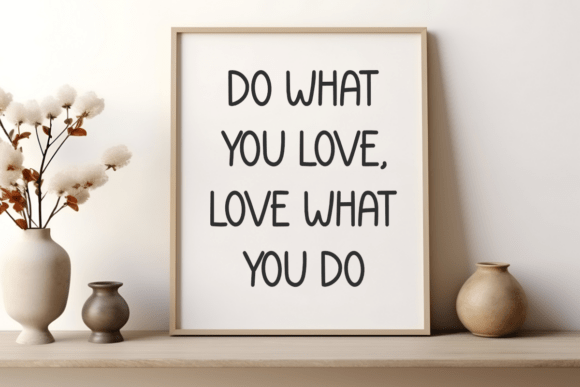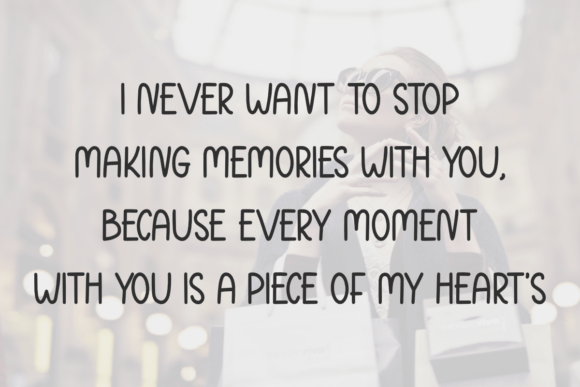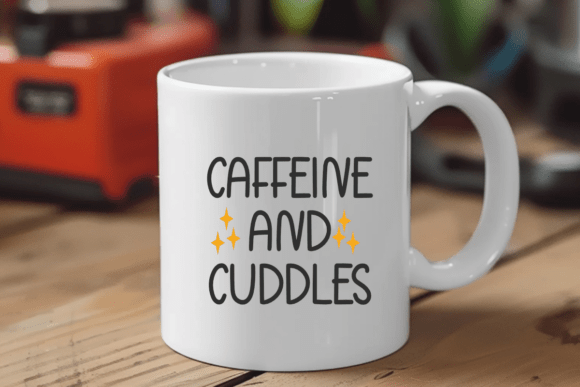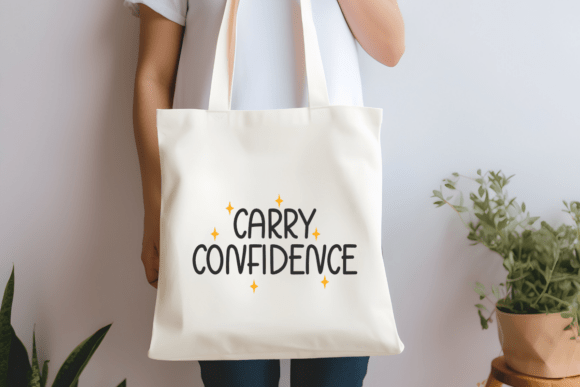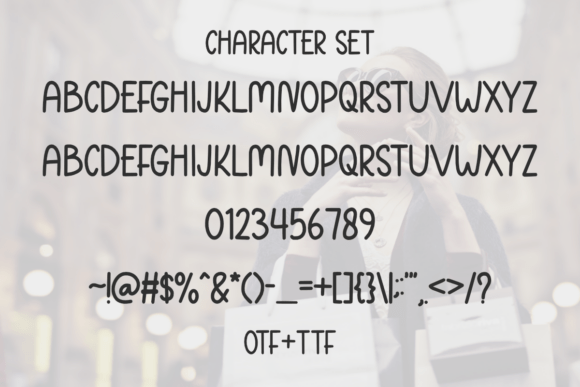
Introduction to Couple Fashion Font
Have you ever stumbled upon the perfect font while browsing through design resources, only to find it’s the missing piece that elevates your entire creative project? For me, that moment happened when I discovered the Couple Fashion Font. Its unique blend of handwritten charm and trendy flair immediately caught my attention, and I knew I had to share it with fellow designers.
Couple Fashion Font is a stunning addition to any design arsenal, offering a high-quality, transparent background that’s perfect for fashion branding, social media quotes, and modern stationery. Its tall, rounded letters and casual flow bring a soft and playful vibe that’s sure to capture the hearts of your audience. Whether you’re working on a personal project or offering free downloads to your clients, this font is an invaluable design resource that’s sure to add a personal and stylish touch.
Couple Fashion Font
- High-quality design resource perfect for creative projects and personal use.
- Features a transparent background, making it easy to use with any design or background.
- Includes a range of stylish and trendy characters, ideal for fashion, beauty, and lifestyle designs.
- Available in 4 different font styles, each with unique characteristics and flair.
Honest Review: Couple Fashion Font
I recently stumbled upon the Couple Fashion Font and was excited to give it a try. As a designer, I’m always on the lookout for new and unique design resources to elevate my creative projects.
- ✨ High-quality design: The Couple Fashion Font is well-crafted and visually appealing.
- ✨ Versatility: It can be used for a variety of creative projects, from fashion to lifestyle designs.
- ✨ Transparent background: This makes it easy to use the font on any background, without worrying about messy edges.
- ⚠️ Limited character set: While the font is well-designed, the character set is a bit limited, which may be a drawback for some designers.
- ⚠️ Not ideal for large text: The Couple Fashion Font looks best when used for smaller text, as it can become difficult to read when enlarged.
Overall, I’m impressed with the Couple Fashion Font. It’s a great addition to any designer’s toolkit, and I appreciate the fact that it’s available as a free download. With a few tweaks, it could be a truly exceptional design resource.
Couple Fashion Font
Tips for Getting the Most Out of Couple Fashion Font
To get the most out of Couple Fashion Font, use it on a transparent background to create a clean and modern look. Experiment with different font sizes and colors to add depth and visual interest to your design.
Couple Fashion Font is perfect for creative projects such as:
- Fashion and beauty branding
- Graphic design and advertising
Alternatives to Couple Fashion Font
One of the standout features of Couple Fashion Font is its transparent background, making it easy to integrate into any design. Plus, with its modern and trendy aesthetic, this font is sure to impress. Don’t miss out on the opportunity to take your design projects to the next level – download Couple Fashion Font today and experience the difference for yourself!